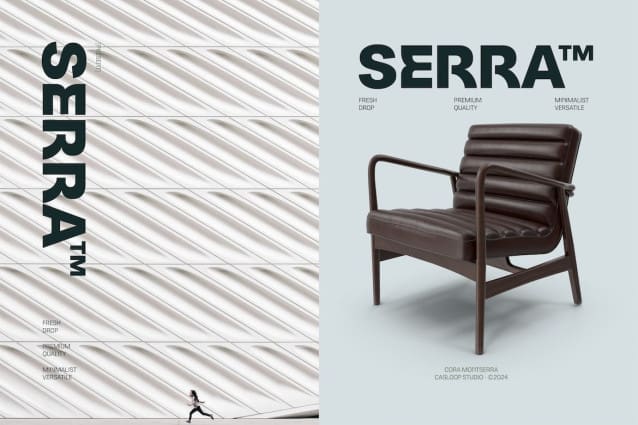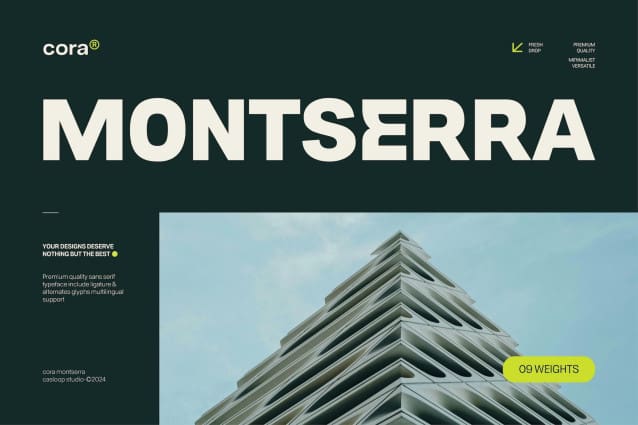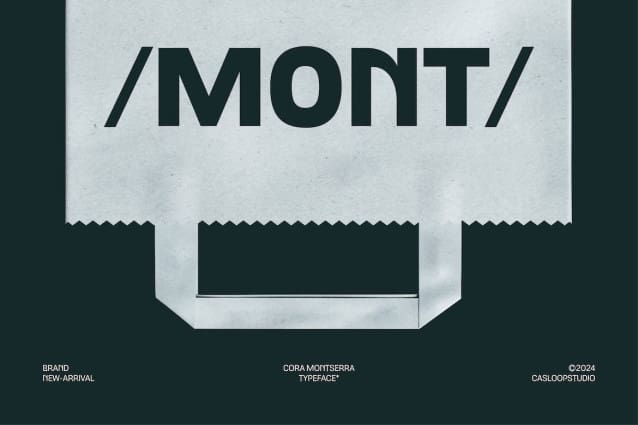
Cora Montserra Font Family
Cora Montserra Font Family, a modern, premium typeface designed to meet the needs of today’s digital media and business environments. Perfectly balancing technology and historical inspiration, this font brings a professional and expressive touch to your projects.
Cora Montserra stands out with its distinctive capital letters, drawing inspiration from classic signage while adopting a minimalist geometric sans serif design. This combination ensures that your text stands out with clarity and elegance, whether used for branding, Logos or packaging. The font’s tall X-height, short descenders and large apertures ensure high readability even at the smallest sizes, making it ideal for print and digital applications
Versatile Weight Range: From thinnest to blackest, Cora Montserra offers a full range of weights, allowing you to use it on different media and contexts.
Dynamic and impactful: Its bold and expressive style is perfect for creating striking text animations and website headers that captivate audiences.
Readable and professional: The neo-grotesque style ensures that your text remains clear and readable, improving the viewer experience.
Timeless and Original: While maintaining a modern aesthetic, the unique details of Cora Montserrat’s characters add a subtle touch of originality that makes your designs stand out from the rest.
Websites: Improve the readability and aesthetics of your site with a font that displays perfectly on all screen sizes.
Packaging: Create compelling, clear packaging designs that attract and inform.
Logos: Create memorable and professional logos with a distinctive look.
Branding: Establish a consistent, modern brand identity.
Digital Media Visuals: Perfect for use in social media graphics, Infographics, etc.